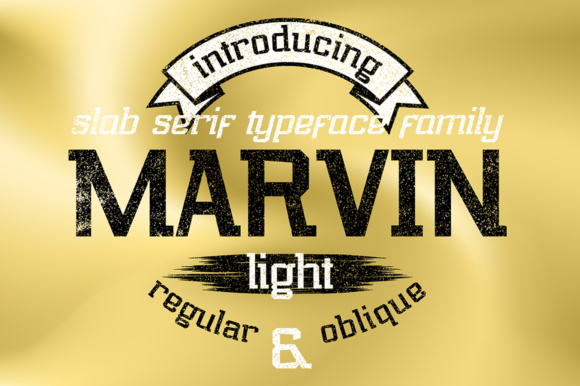
Behold Marvin Light, a beautiful slab serif font that captures harmony and grace. Its semi-expanded width and slim strokes create an elegant, unique look that stands out in both body text and headlines. Whether designing a captivating logo or adding sophistication to your website, Marvin Light brings a touch of elegance and refinement.
Experience the versatility of Marvin Light across a range of creative projects. From posters and flyers to brochures and presentations, its clean and robust appearance ensures your message is conveyed with impact. Marvin Light effortlessly blends with various design styles, lending a touch of sophistication to any project.
Step into a world of visual allure with Marvin Light. Its carefully crafted curves and sharp edges create a visually striking balance, making every word and letter an artistic masterpiece. Unleash your creativity and let Marvin Light transform your designs into captivating works of art.
Created by NREY, a renowned font designer, Marvin Light embodies quality and excellence. Trust in the expertise of NREY to deliver a font that meets the highest standards of design. Experience the difference that Marvin Light can make in your creative endeavors.